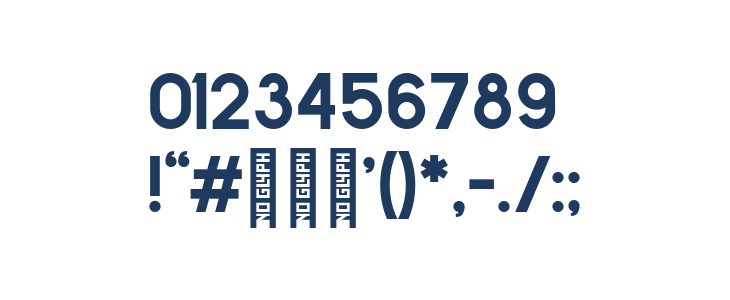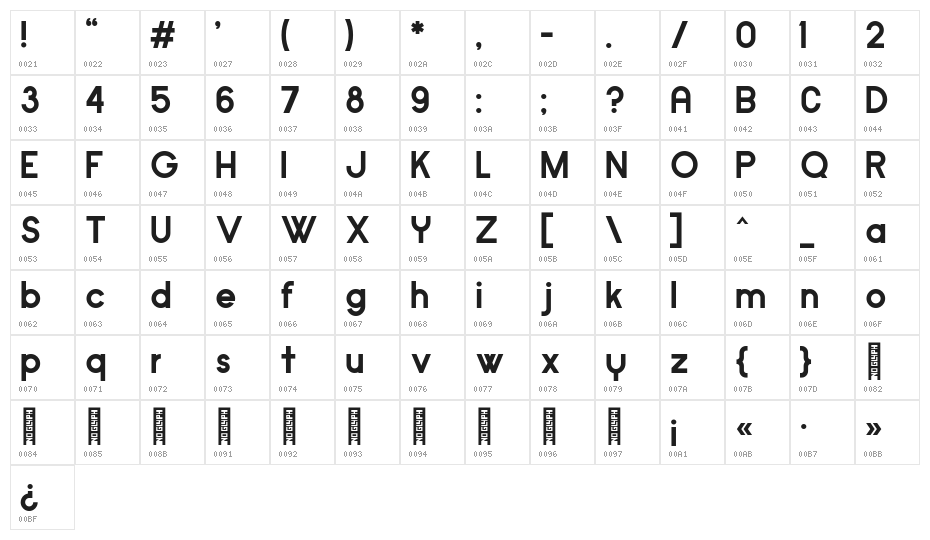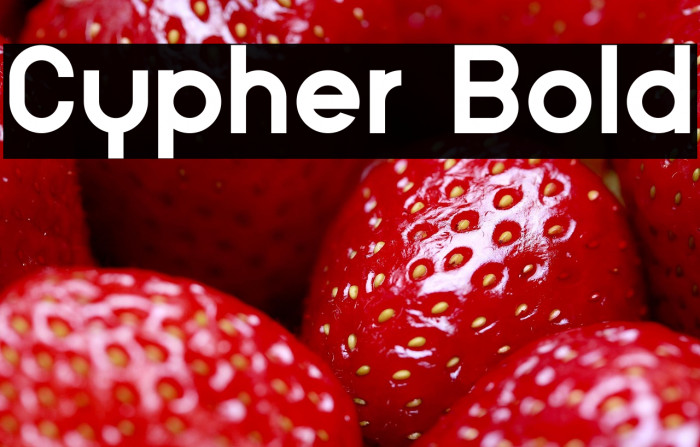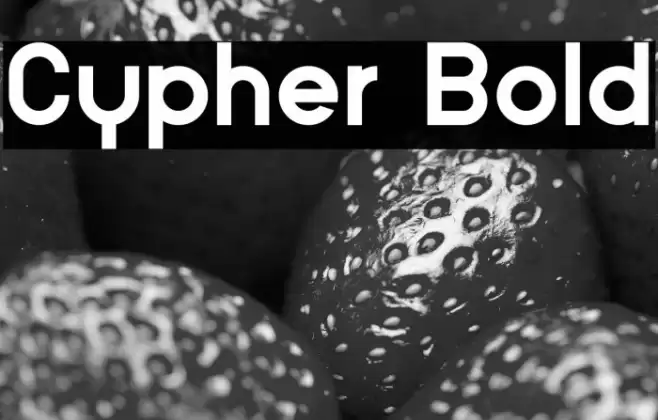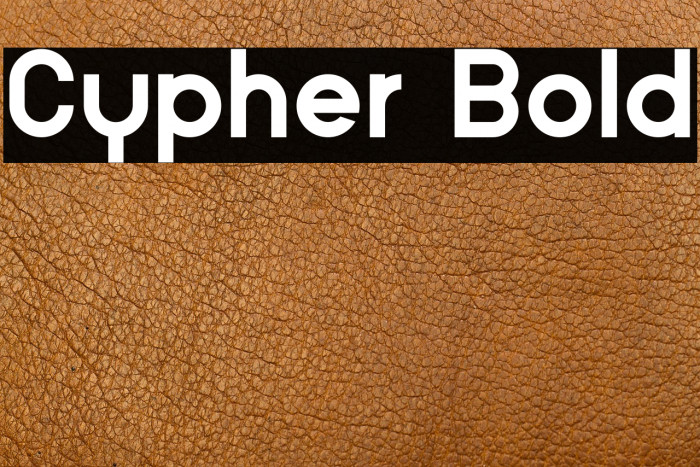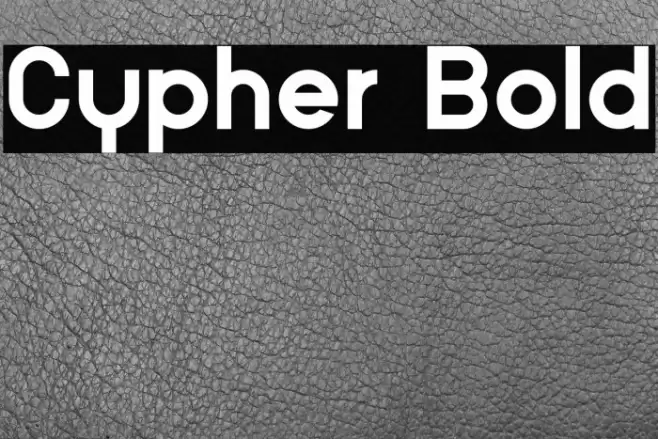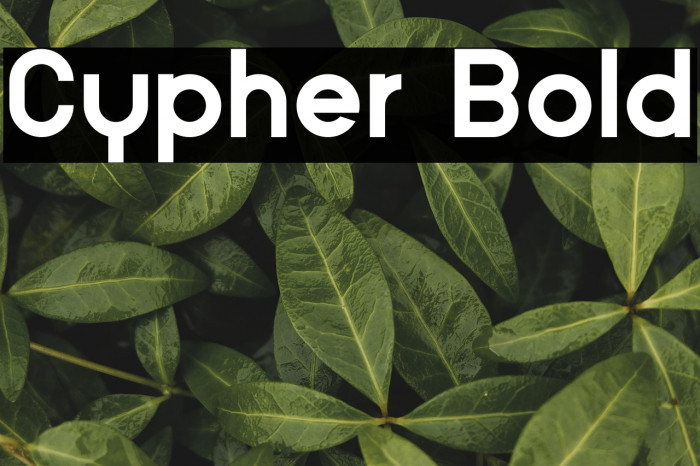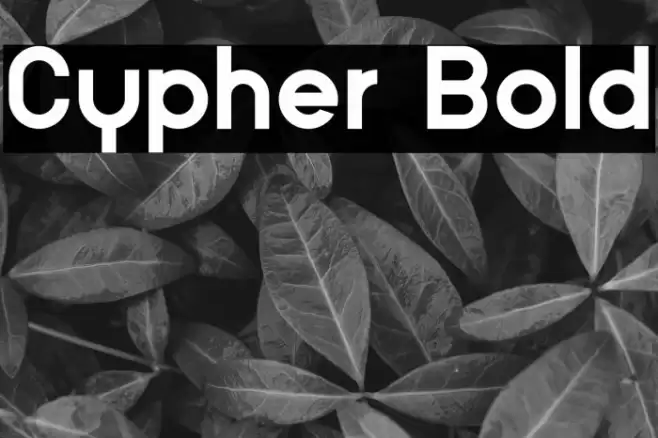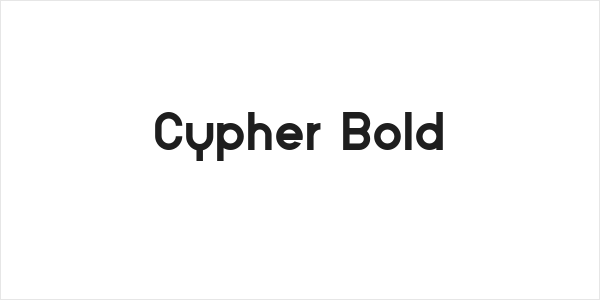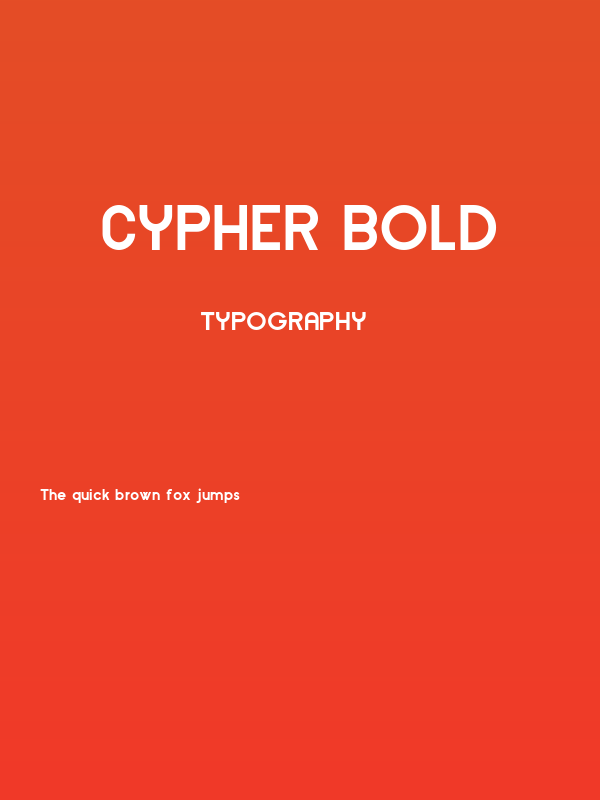
Cypher Bold Font
Cypher Bold Description
This font exhibits a bold and modern aesthetic, characterized by clean lines and a geometric structure. The uppercase letters are uniform in height, creating a cohesive and balanced appearance. The lowercase letters maintain a similar width, contributing to the font's overall consistency. The numerals are clear and legible, with a slightly rounded design that complements the alphabetic characters. Special characters are distinct and well-defined, ensuring readability across various applications. The font's bold weight and straightforward style make it suitable for impactful and attention-grabbing designs.
| Proposed Projects | Ideal for branding, headlines, posters, and digital media where a strong visual impact is desired. |